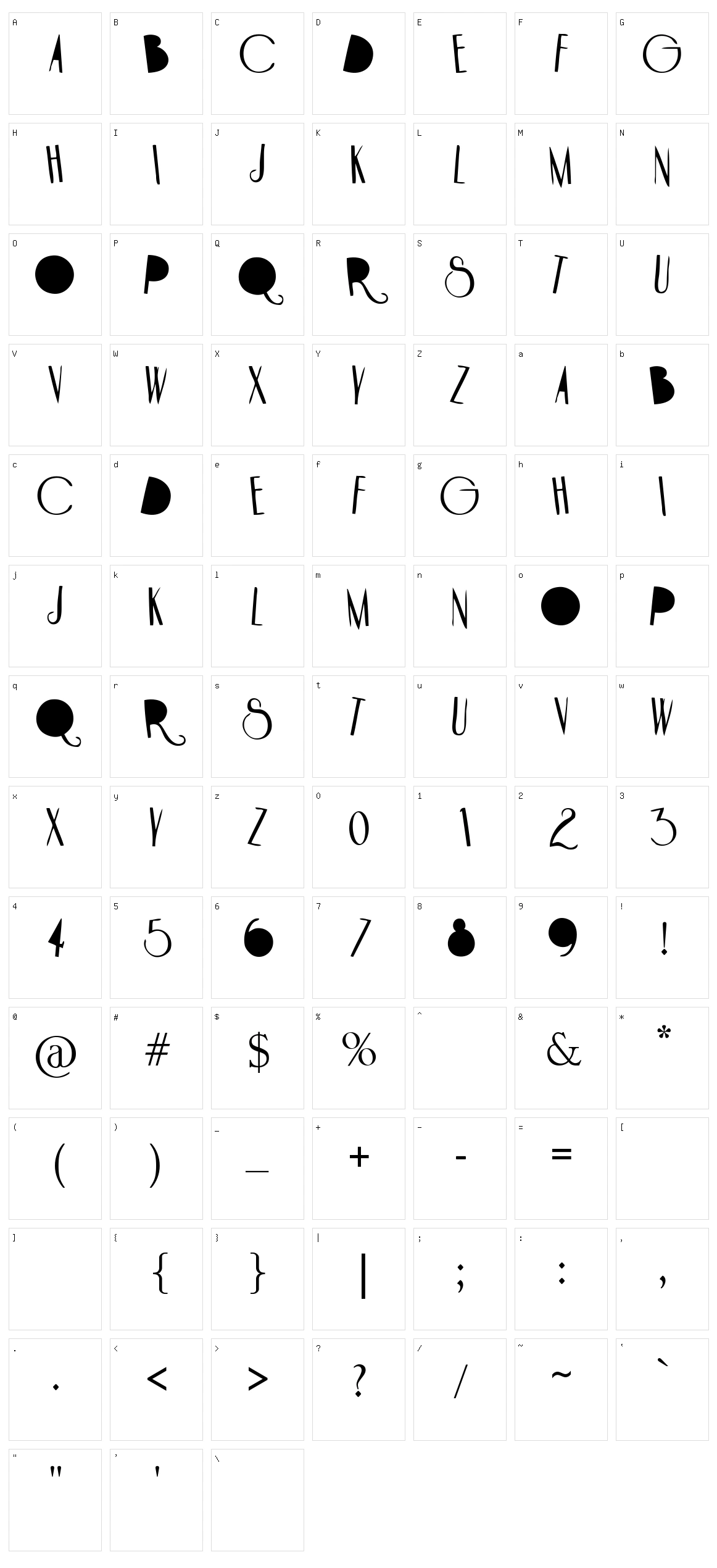
The free font Hotel Paradiso is carefully designed by Woodcutter, showcasing a thoughtful balance of creativity and usability and falls under the Distorted font style. When you download the ZIP file, it contains only 17.58 KB of font files, making it lightweight and quick to download. Please review the license details below to understand permitted usage and distribution rights. If license information is not available, we recommend using this font for personal projects only or contacting the author directly for commercial usage permissions.